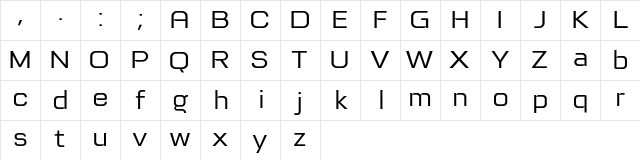
Tretton Regular Free Font
Tretton Regular
Designer: Steve Gardner
Design Context for Tretton
Tretton is a composed and adaptable typeface that performs quietly and consistently across a wide range of design contexts.